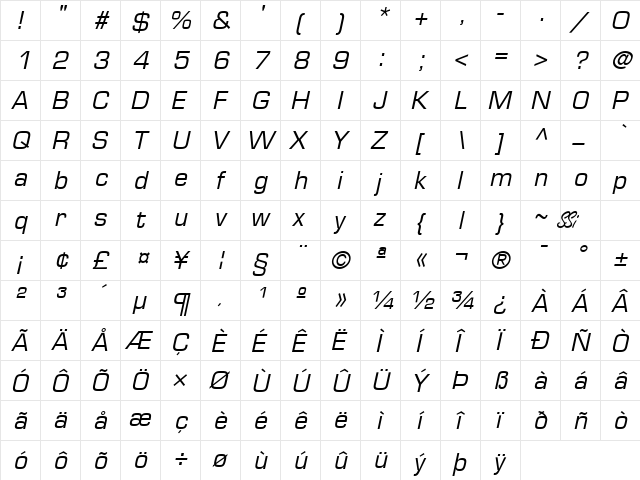
Palindrome SSi Italic
Design Context for Palindrome SSi Typeface
Palindrome SSi is a composed and adaptable typeface that performs quietly and consistently across a wide range of design contexts. The slanted form adds forward momentum and visual energy.
Pro Tip: Try Palindrome SSi for annotation and caption copy alongside an upright companion — the contrast in angle creates a dynamic but ordered typographic system.